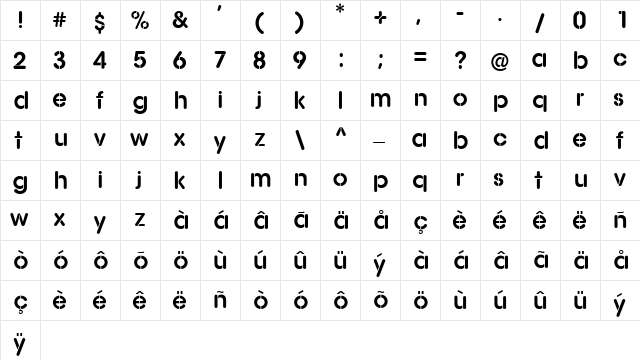
AG Stencil AG Stencil
| Designer | yong // oneonezero |
Design Context for AG Stencil Typeface
AG Stencil has the rough pragmatism of spray-painted stencil signage, adding a raw, street-level authenticity to designs.
Ideal for industrial branding, streetwear, military-adjacent aesthetics, and urban signage projects.